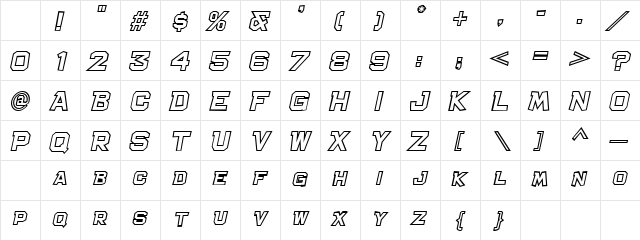
Complete Bachelor Pad Outline JL Italic glyph index. Displaying only characters natively supported by Bachelor Pad Outline JL Italic font.
Bachelor Pad Outline JL is built around its visual character rather than neutral utility - its distinctive forms are designed to make an impression at display sizes. The slanted form adds forward momentum and visual energy.
Font Pairing: Pair with a clean neutral sans-serif for body copy to let Bachelor Pad Outline JL's character lead without overwhelming the composition.
Pro Tip: Use Bachelor Pad Outline JL exclusively at display sizes - it was designed to be seen, not read at length. Let a neutral companion handle body copy.